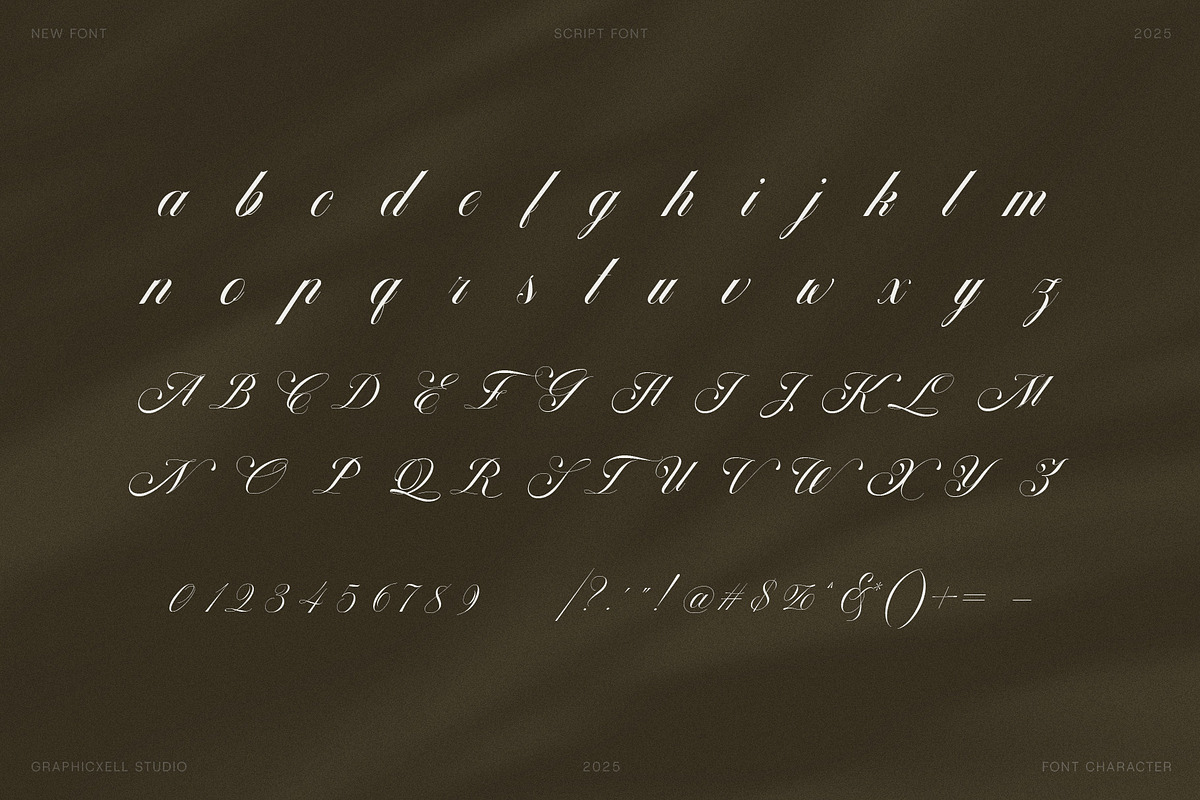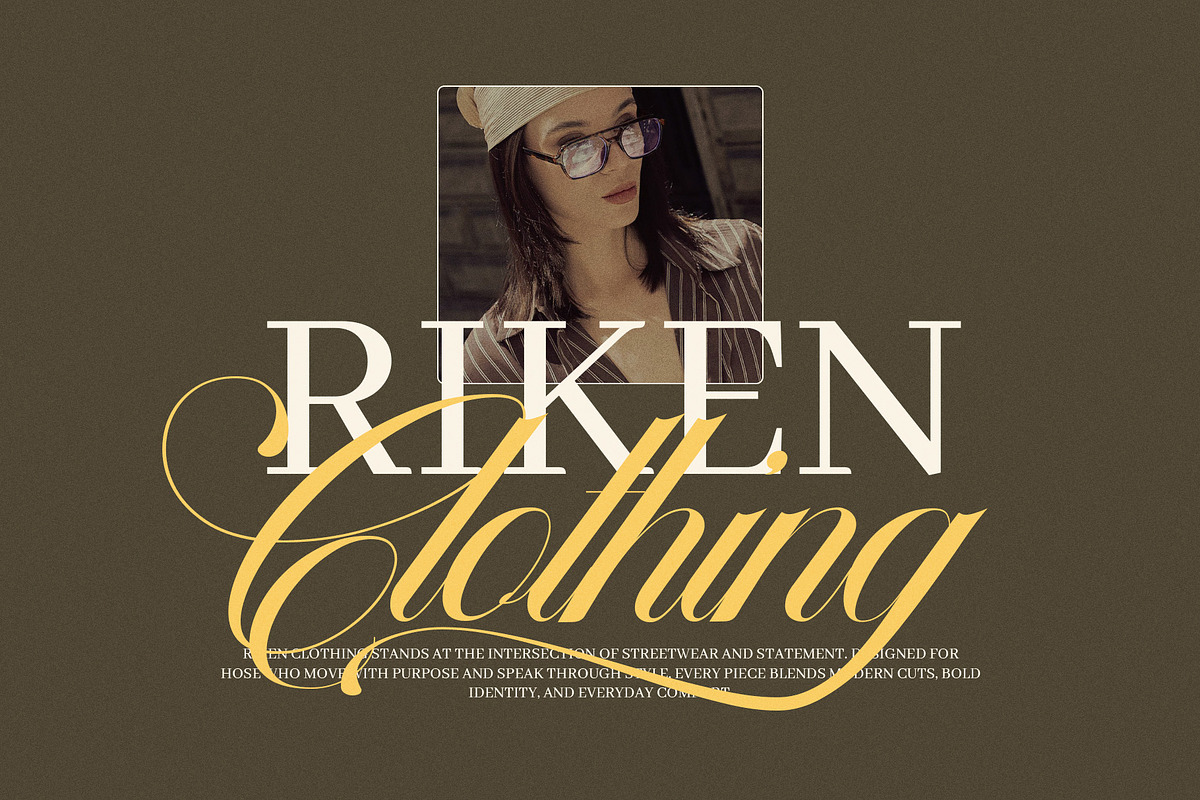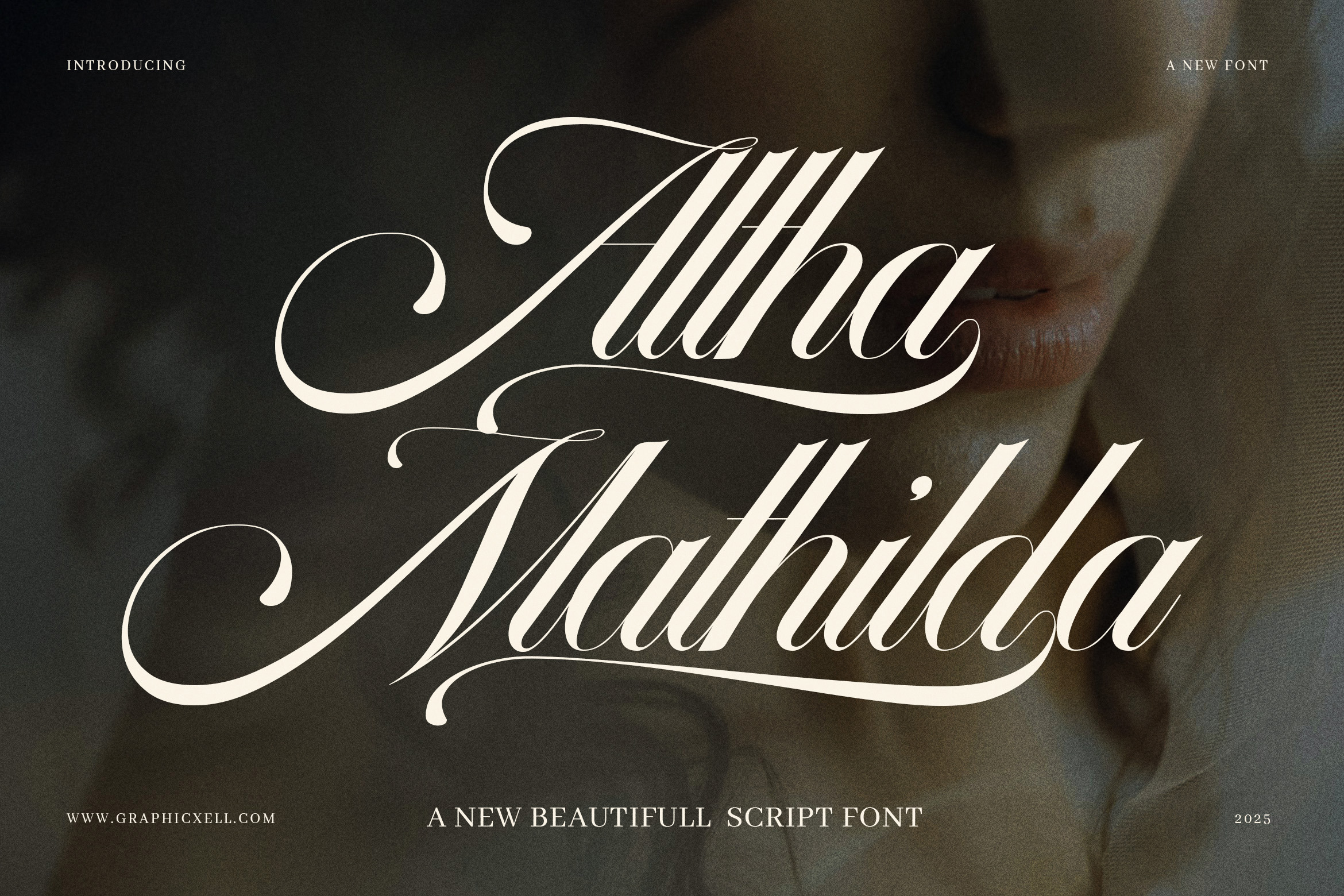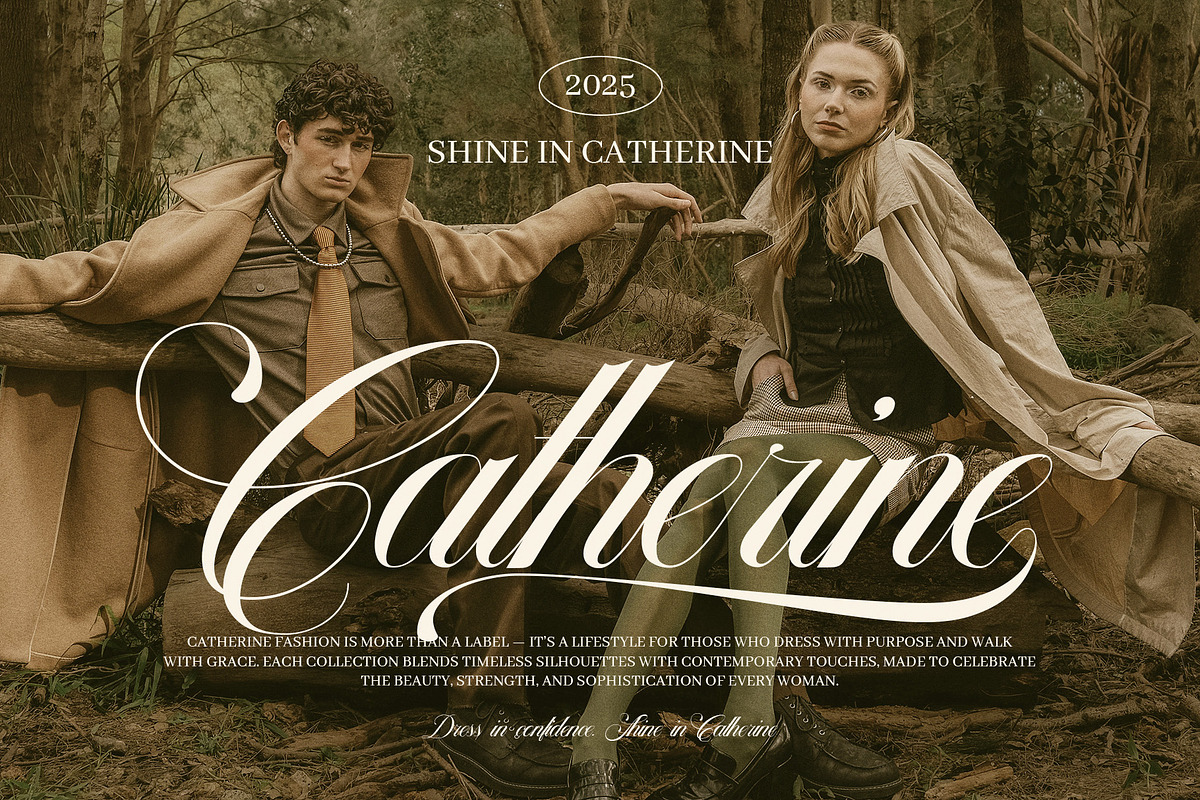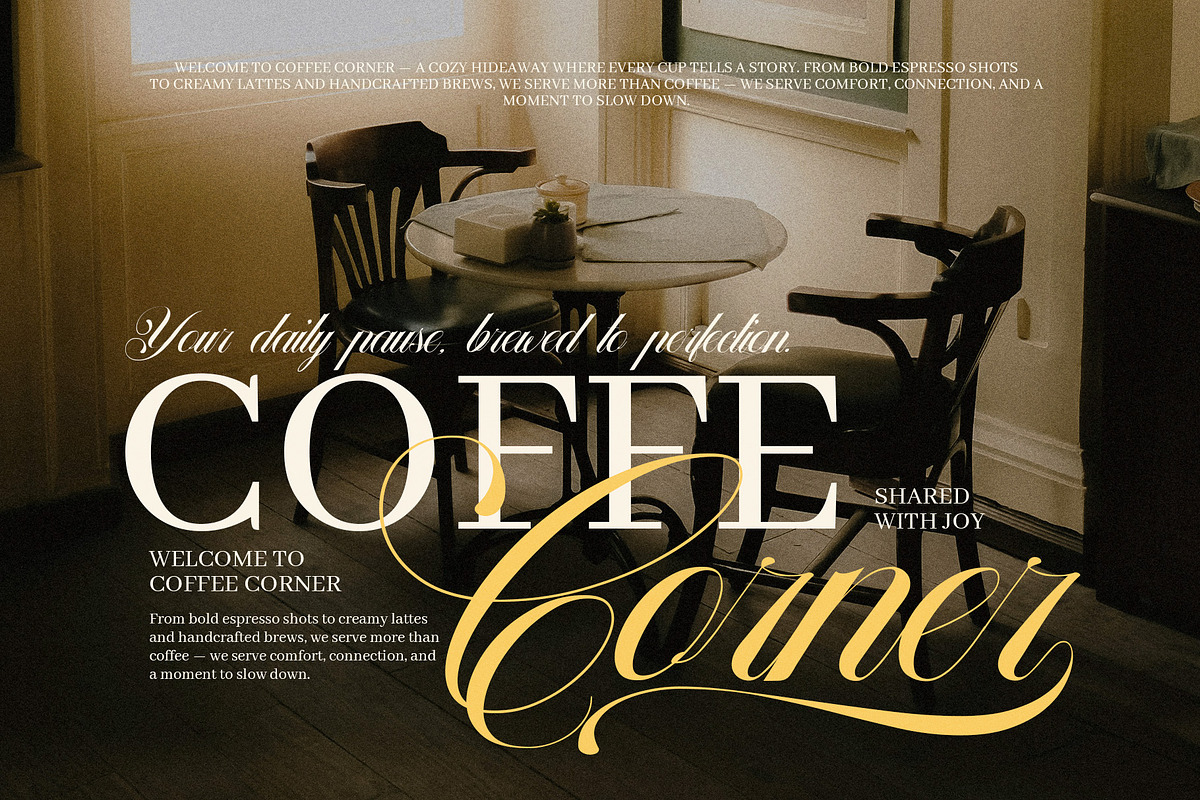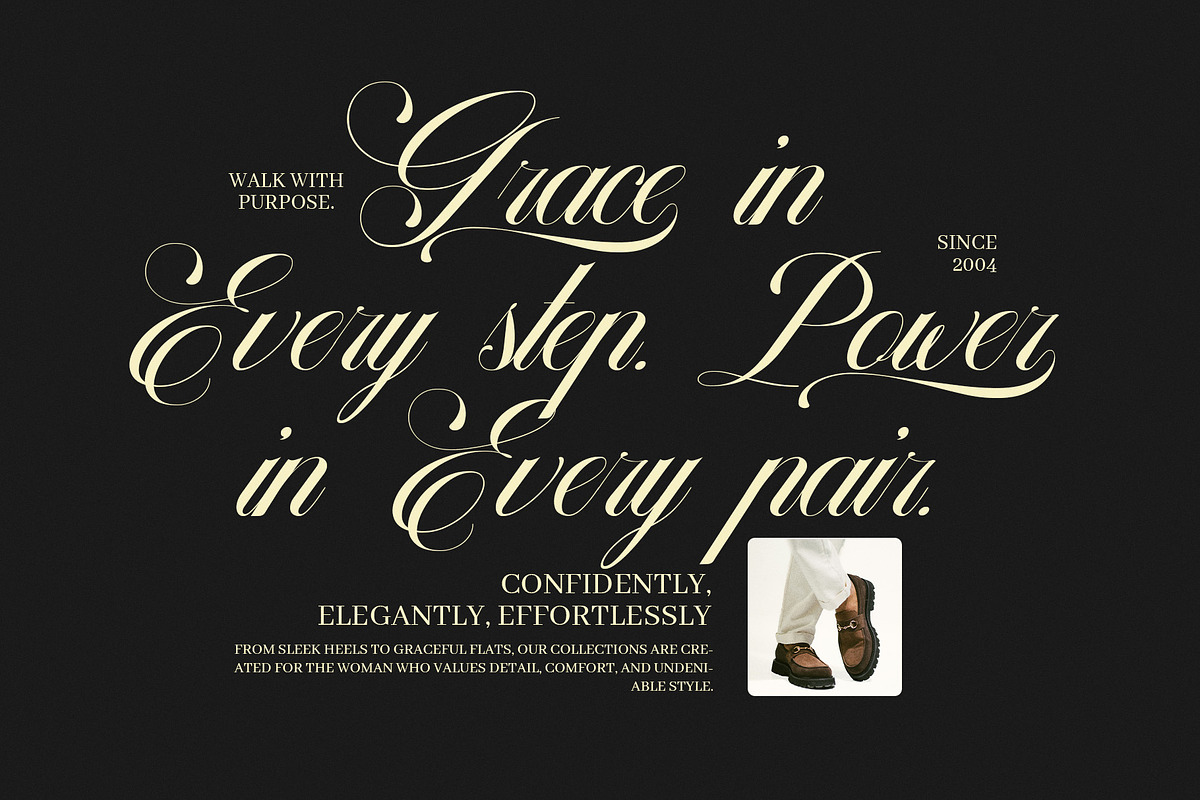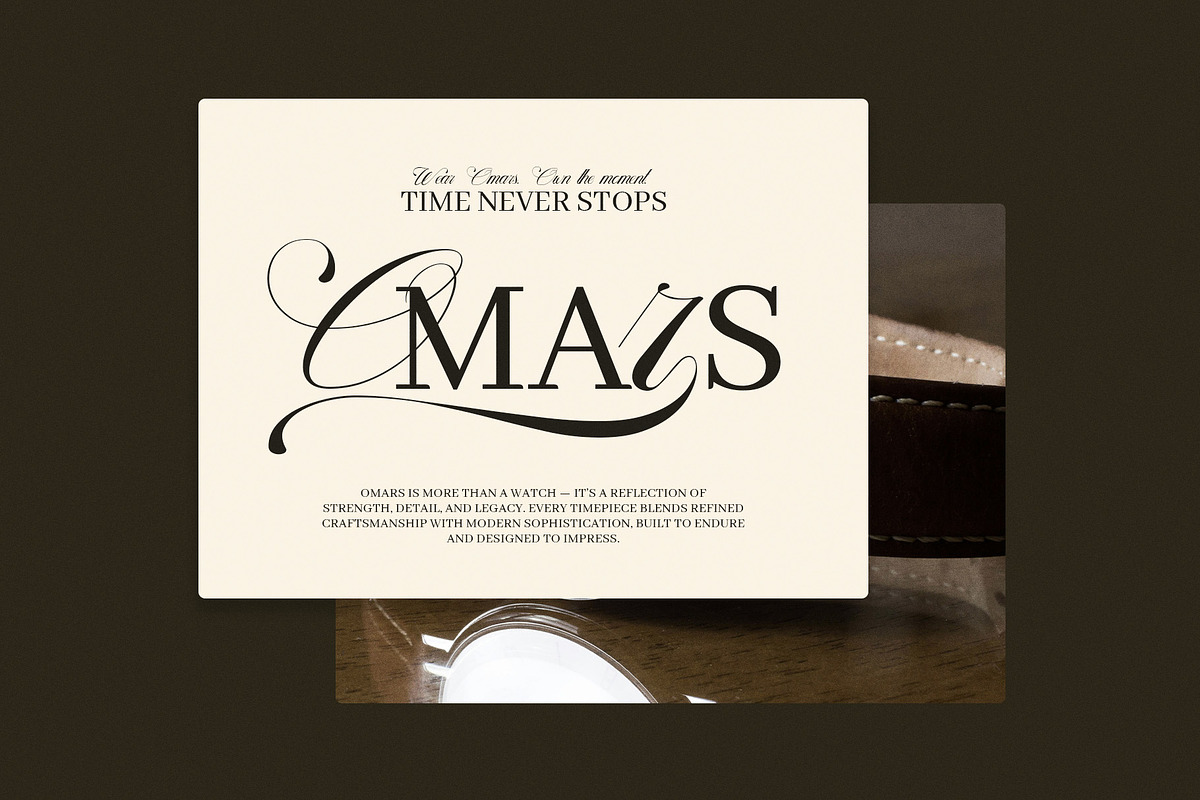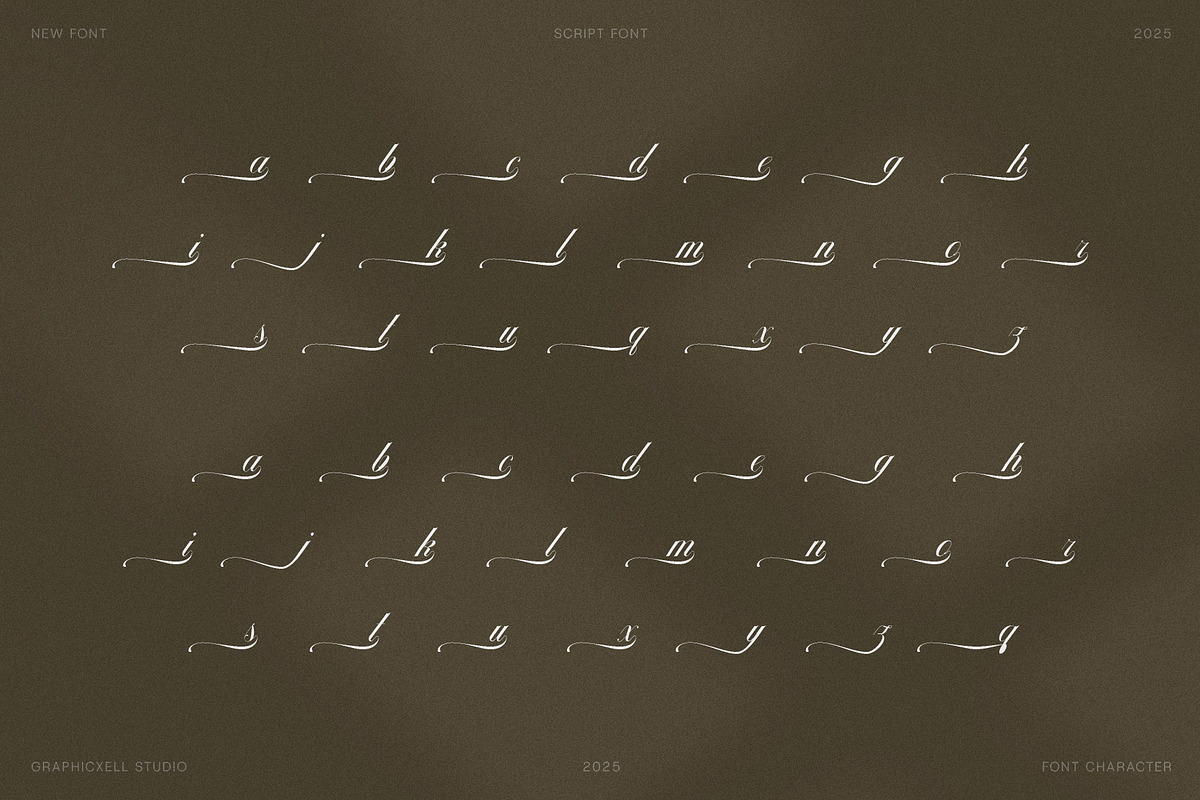
Altha Matilda Elegant Script Font
Altha Matilda is an elegant script font designed to express grace, confidence, and timeless beauty. It features flowing strokes, smooth curves, and balanced letterforms that feel refined and expressive. Because of its graceful structure, this font creates a strong visual impact while remaining easy to read.
This script font blends classic calligraphy with modern fashion style. As a result, it works beautifully for luxury branding, editorial layouts, and lifestyle visuals. Moreover, each letter connects smoothly, allowing words to flow naturally across any design. The long swashes add character, while the soft contrast keeps the text elegant and calm.
Altha Matilda is perfect for designers who want beauty with clarity. Therefore, it fits well in logos, fashion campaigns, product packaging, and café branding. In addition, it performs beautifully in quotes, headlines, and promotional materials where emotion matters.
Why choose Altha Matilda Script Font?
Elegant handwritten style with smooth flow
Long swashes that enhance visual luxury
Clear readability with artistic detail
Ideal for fashion, lifestyle, and branding
Suitable for both print and digital use
Furthermore, Altha Matilda adapts easily to many creative themes. Whether you design for fashion labels, watch brands, coffee shops, or home décor, this font adds warmth and sophistication. Because of its consistent spacing, it pairs well with serif and sans-serif fonts.
Altha Matilda does more than decorate words. Instead, it helps tell a story with style and confidence. Each stroke feels intentional, while each curve feels graceful. Consequently, your designs appear polished, emotional, and memorable.
In conclusion, Altha Matilda is a script font created for designers who value elegance and expression. Use it to elevate your work and deliver timeless beauty with ease.